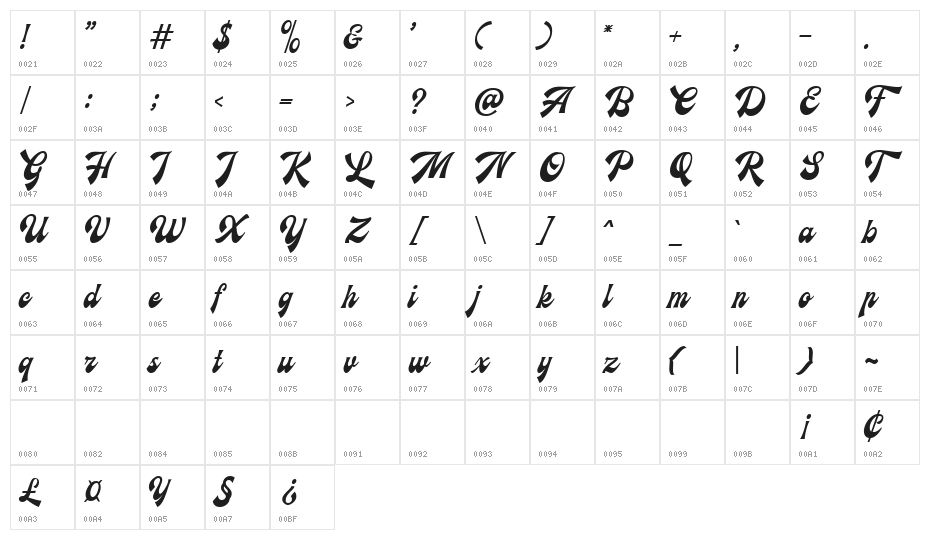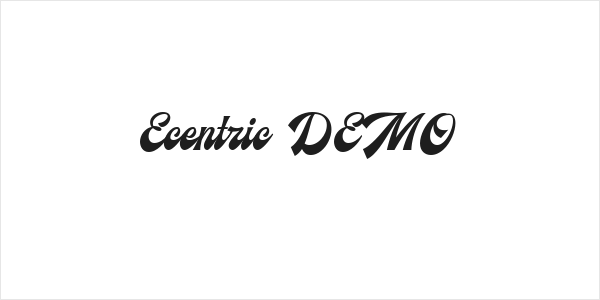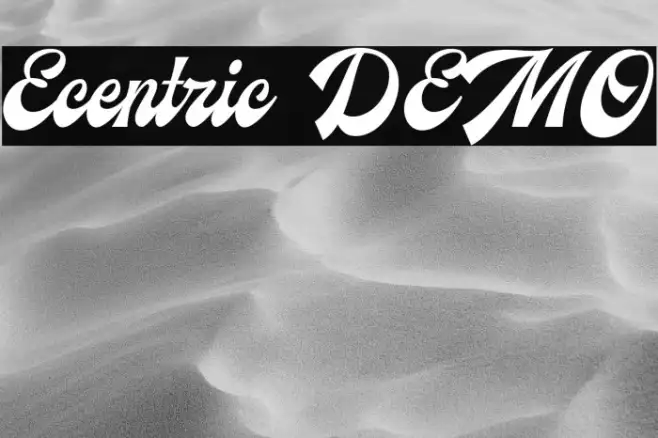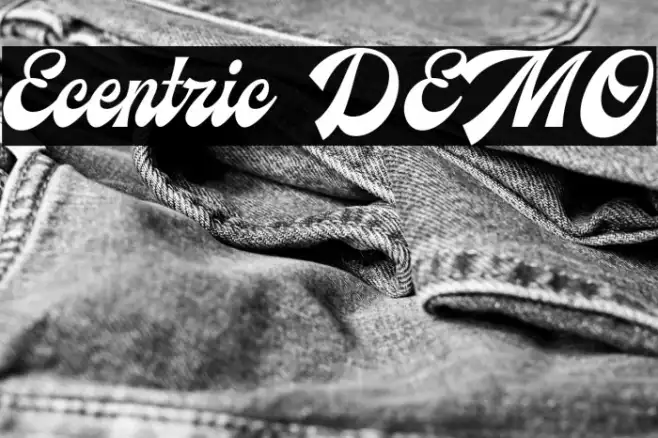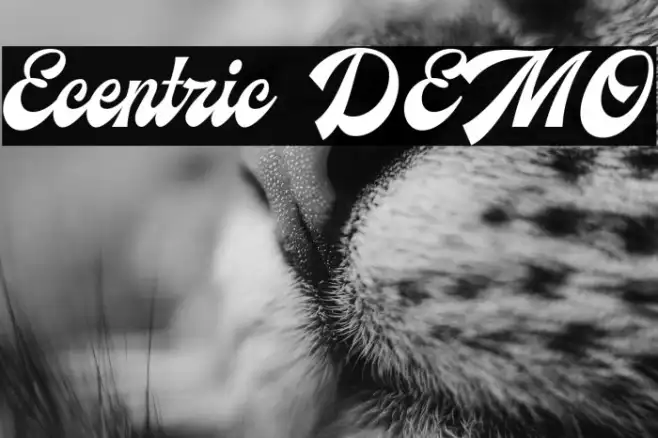
Ecentric DEMO Font
Ecentric DEMO Description
This font features a bold and dynamic script style with a strong, flowing appearance. The characters are interconnected, creating a sense of movement and elegance. The uppercase letters are particularly striking, with sharp angles and a slight slant that adds to the overall dramatic effect. The lowercase letters maintain the fluidity of the script, with smooth curves and consistent stroke widths. The numerals and special characters are equally bold, ensuring a cohesive look across all text elements. This font is ideal for making a statement, with its high contrast and decorative flair.
| Proposed Projects | Ideal for branding, logos, invitations, and headlines where a dramatic and elegant script is desired. |